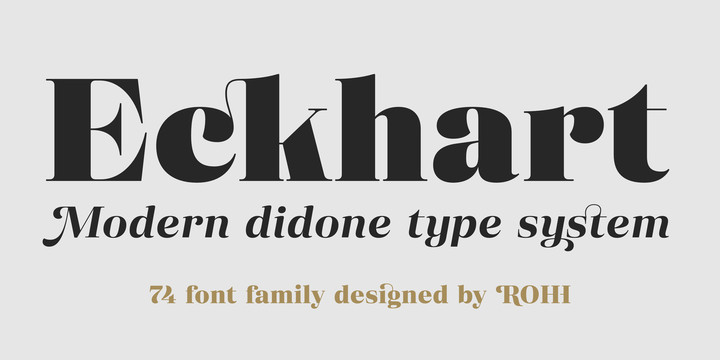
Eckhart Font
Eckhart™ is a modern didone, high-contrast typeface designed to create elegant, original and expressive character. This versatile font family is delivered in four optical sizes, making it a complete type system for all kinds of use, from branding to setting paragraph text. It is equipped with ligatures, swashes and alternates to enrich design possibilities and make it very distinctive as a display typeface.
Eckhart family features a very playful and energetic color font, giving broad new possibilities of display use, especially interesting for posters and magazines. Eckhart Color is delivered both as OTF color font as well as regular layered font in 6 layers – it helps to achieve maximum software compatibility and control over colors.